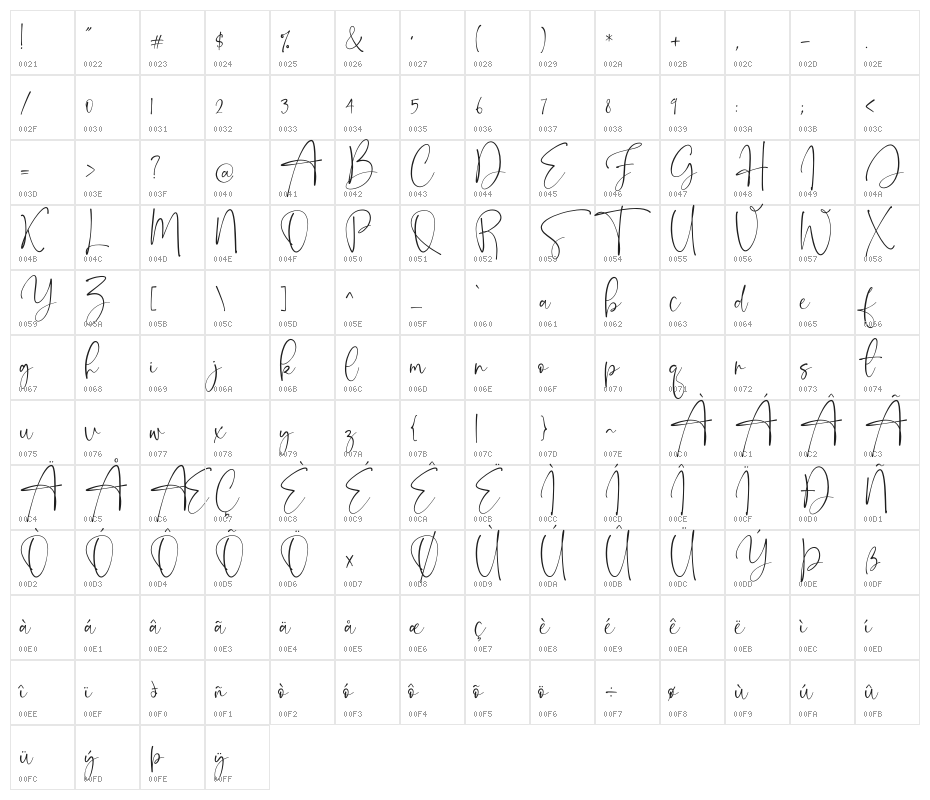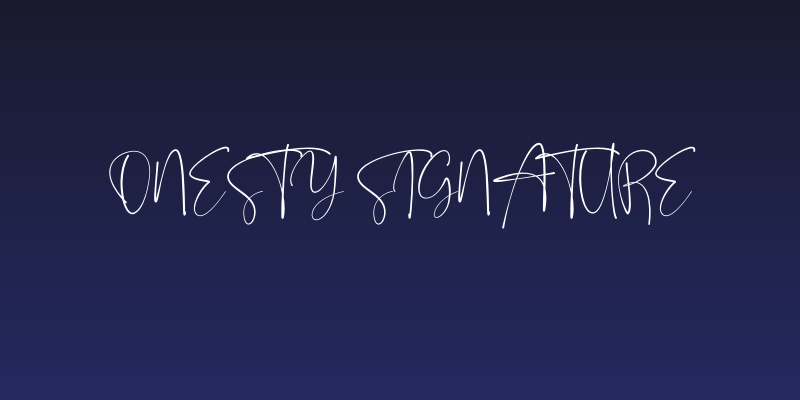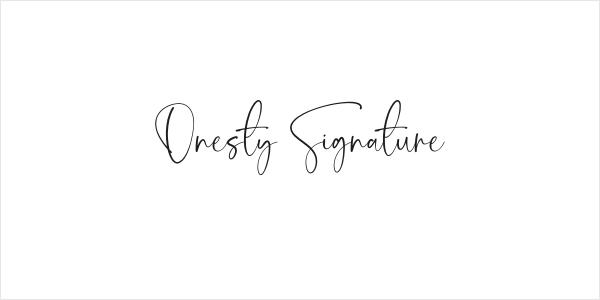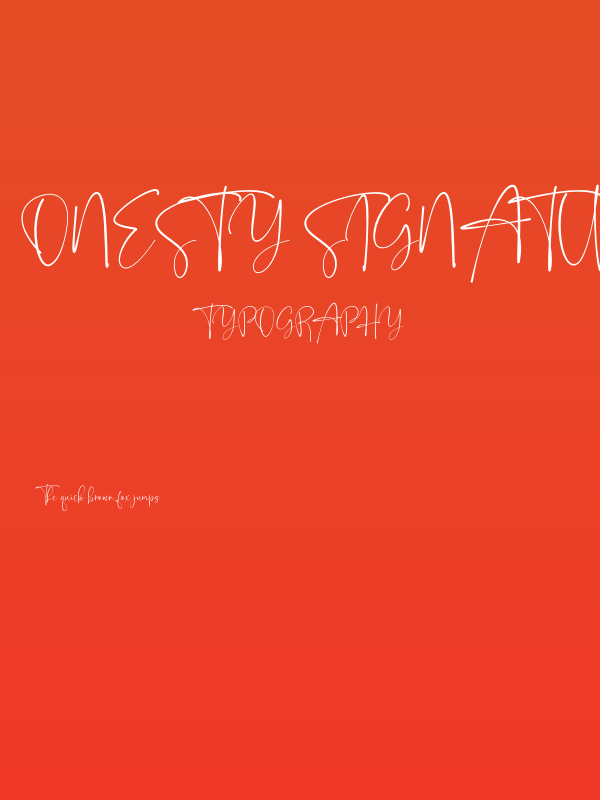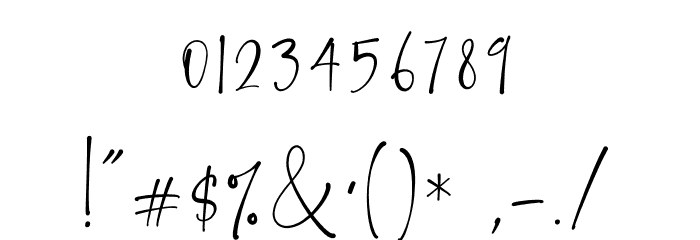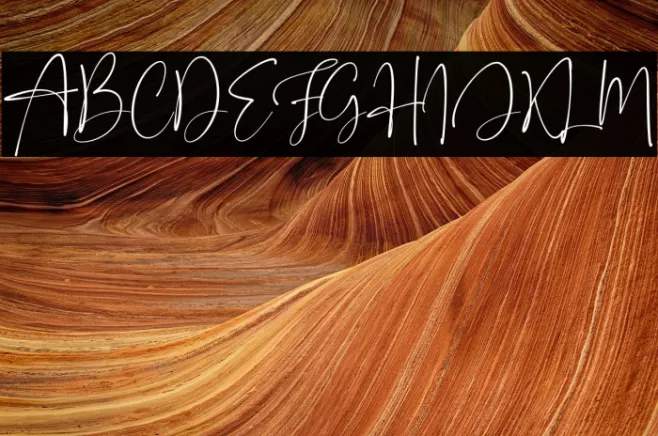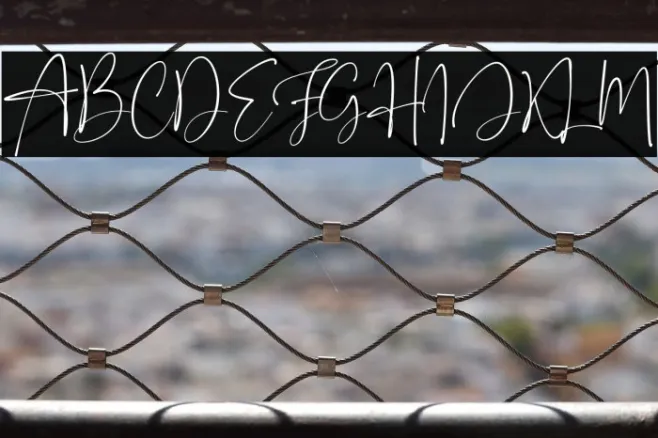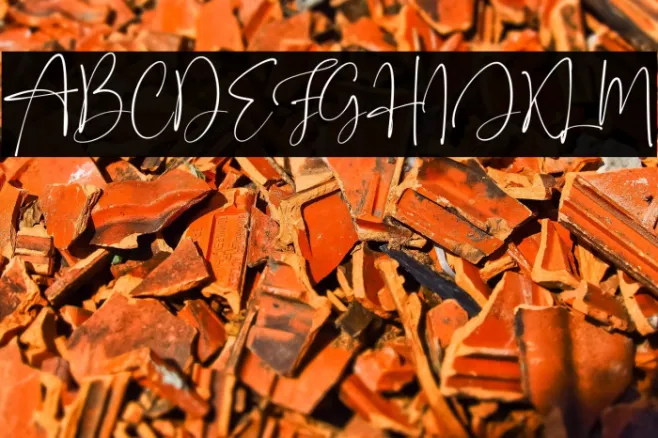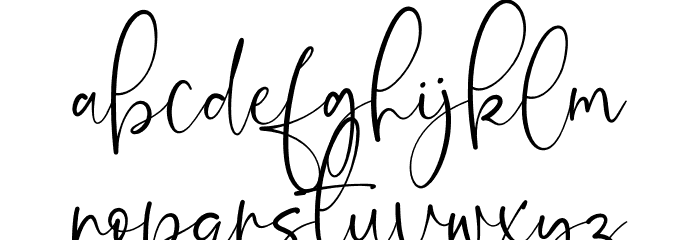
Onesty Signature Font
Onesty Signature Description
This font features a flowing, cursive style that mimics the fluidity of a handwritten signature. The uppercase letters are elegantly elongated with smooth, sweeping curves, while the lowercase letters maintain a consistent, graceful flow. The numerals and special characters are designed to complement the overall aesthetic, adding a touch of sophistication. The strokes are thin and delicate, giving the font a light and airy feel. This font is perfect for projects that require a personal, artistic touch, such as invitations, branding, and logos.